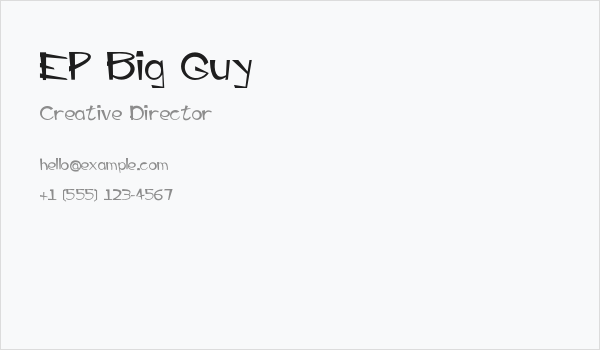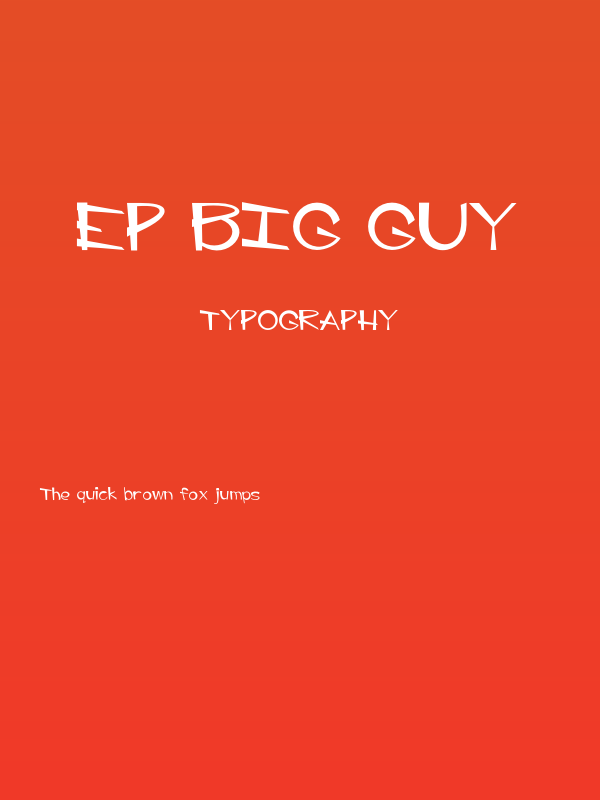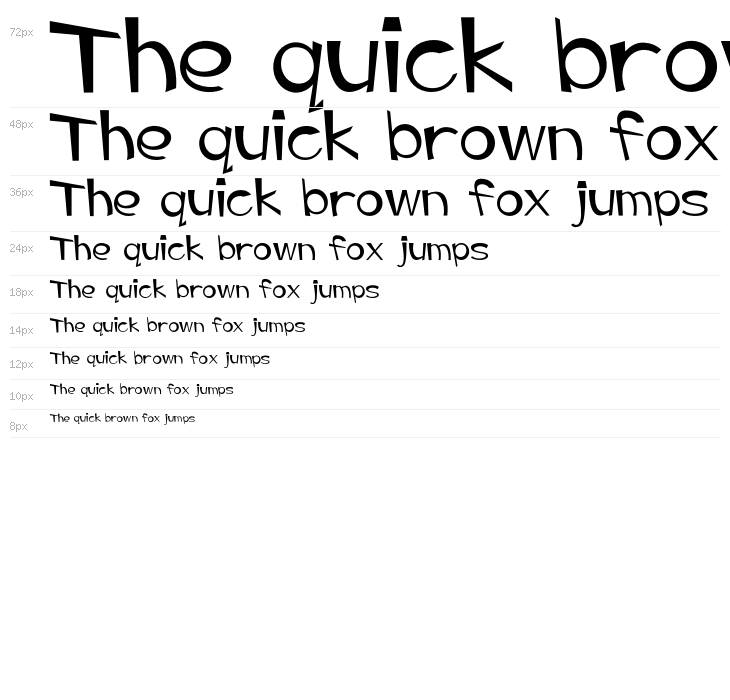
EP Big Guy Font
EP Big Guy Description
This playful and bold font features a whimsical, hand-drawn style with irregular strokes and a slightly tilted appearance. The uppercase letters are characterized by their quirky, uneven lines and varying thickness, giving them a lively and dynamic feel. The lowercase letters maintain this playful aesthetic, with rounded forms and a casual, friendly vibe. The numerals are bold and consistent with the overall style, ensuring readability while maintaining the font's unique character. Special characters are creatively designed, adding to the font's charm and versatility. This font is perfect for projects that require a fun and informal touch.
| Overall Style | Playful, Whimsical, Casual |
| Proposed Projects | Ideal for children's books, playful branding, casual invitations, and creative posters. |